I'm in a bit of dilemma here. I'm using Urxvt as my terminal Fantasque Sans Mono as my font.
Here's the result:
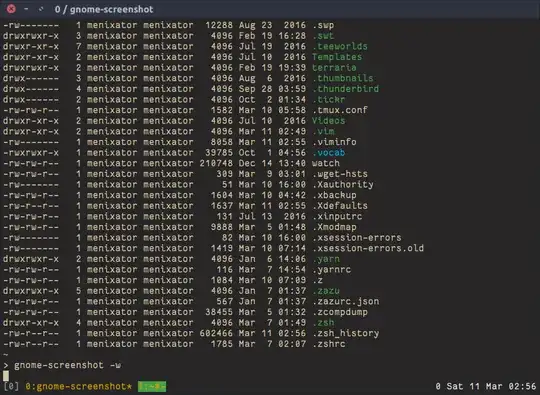
The regular version is just too skinny for me. So I configured Urxvt to use the bold style:
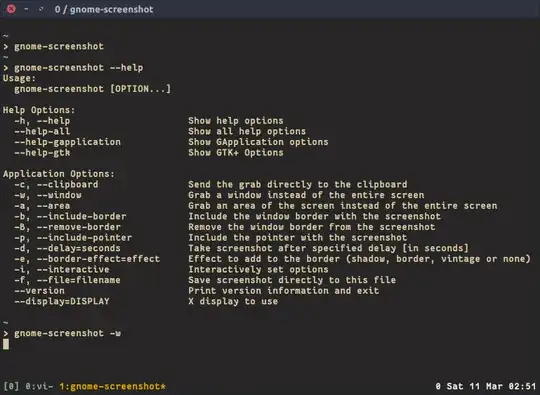
Now it's too bold for my taste. Is there any way to configure the font-weight within ubuntu? Maybe some font-config witchcraft? Or maybe some Infinality magic? I'm completely clueless when it comes to font configuration. I did try infinality's OSX style but it didn't help a lot. Maybe I wasn't doing it right :/
I'm only going through all this trouble because I'd like to start using vim and the font is a big factor here for me.
I love linux and I wouldn't want to be that guy who bought a MacBook just because he liked the terminal's font rendering. That was my goal when I started out with customizing my terminal's font. The closest I got was using Monaco's bold style but it ultimately disables bold styling for me.
I did see a post involving font boldening and font-config but apparently, you can't control how much the font emboldens.